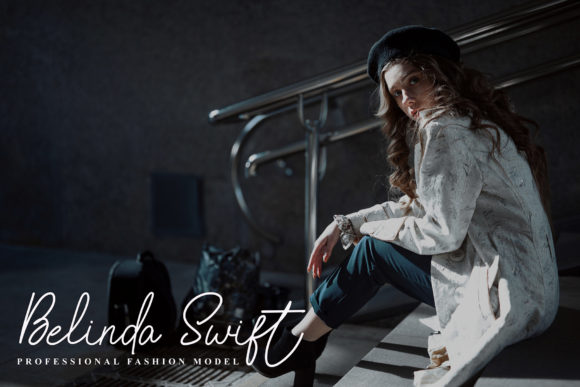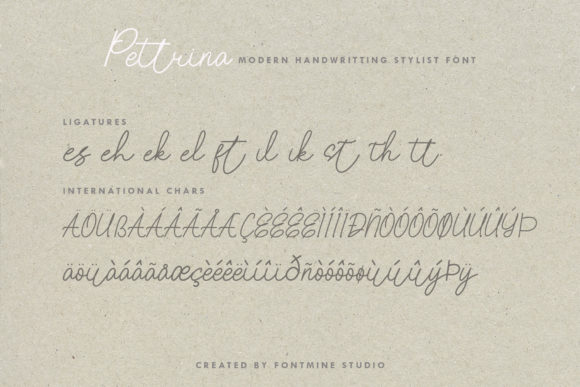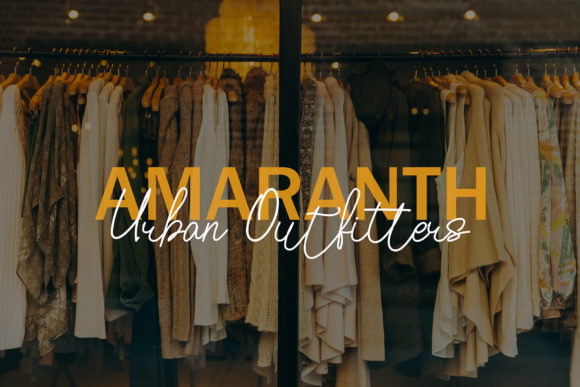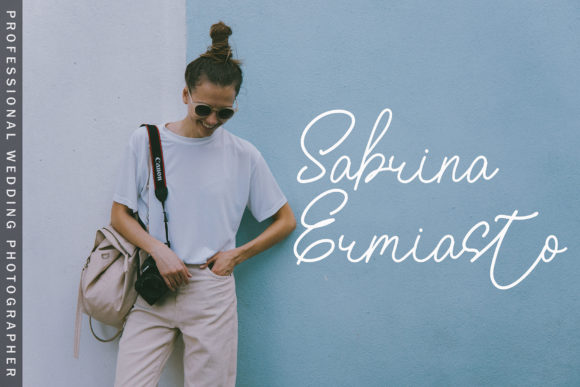
About Pettrina Font
“Pettrina” is a font that embodies fashion, delicacy, and elegance in its script style. With its refined and graceful curves, this font adds a touch of sophistication to a variety of design projects.
Whether you’re working on logos, branding, labels, photography watermarks, or special events, “Pettrina” offers a versatile and stylish choice. Its intricate details and intricate strokes make it a perfect fit for projects that require a beautiful script taste, adding a sense of charm and allure to your creations.
The delicate nature of “Pettrina” makes it particularly well-suited for projects that demand a sense of elegance and refinement. Imagine using this font to create stunning wedding invitations that capture the essence of romance and sophistication. Its fashionable script style can enhance the visual appeal of your designs, making them stand out and leave a lasting impression.
The versatility of “Pettrina” allows it to seamlessly adapt to various contexts, from product labels that exude luxury to social media graphics that demand attention. Its timeless yet contemporary design ensures that it remains relevant and captivating across different design applications.
Incorporating “Pettrina” into your creative projects is a surefire way to elevate their aesthetic appeal. Its delicate and fashionable script, combined with its ability to convey a sense of elegance and beauty, makes it an excellent choice for expressing your creative vision in a visually striking and memorable way.